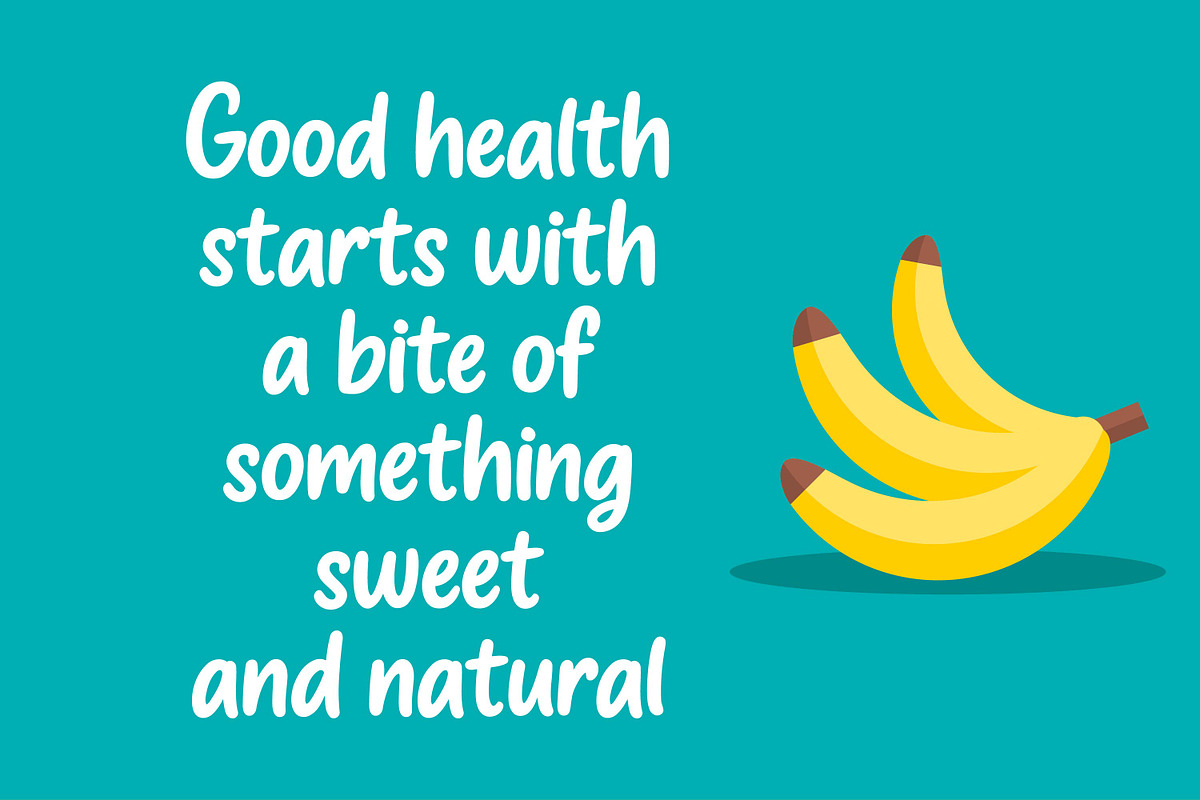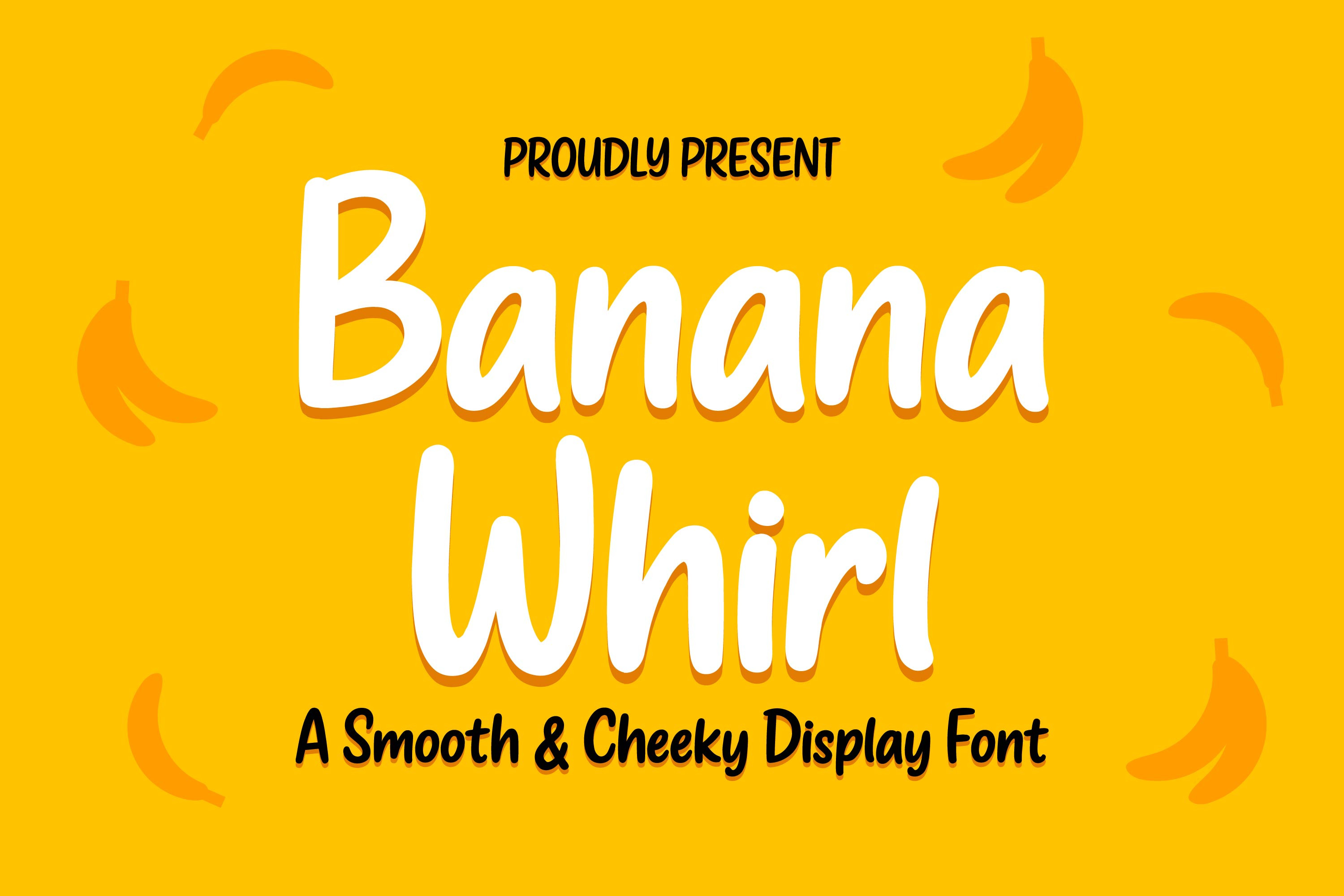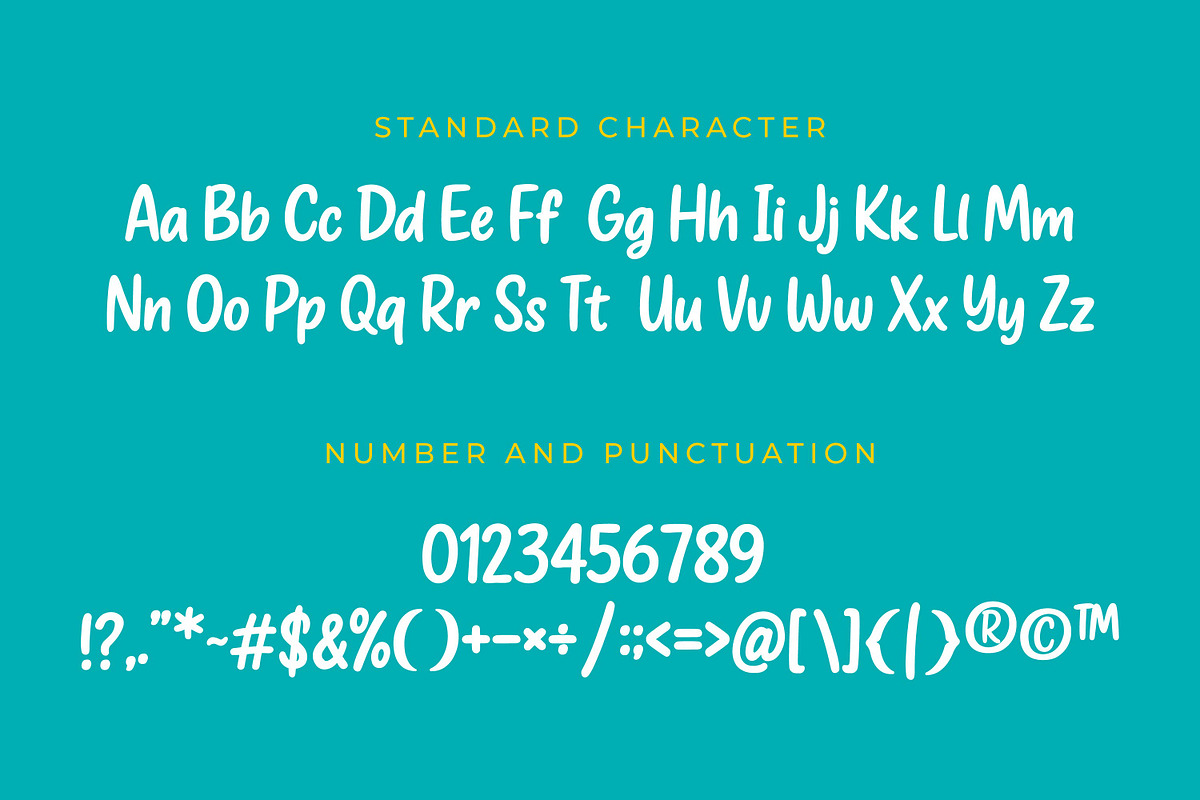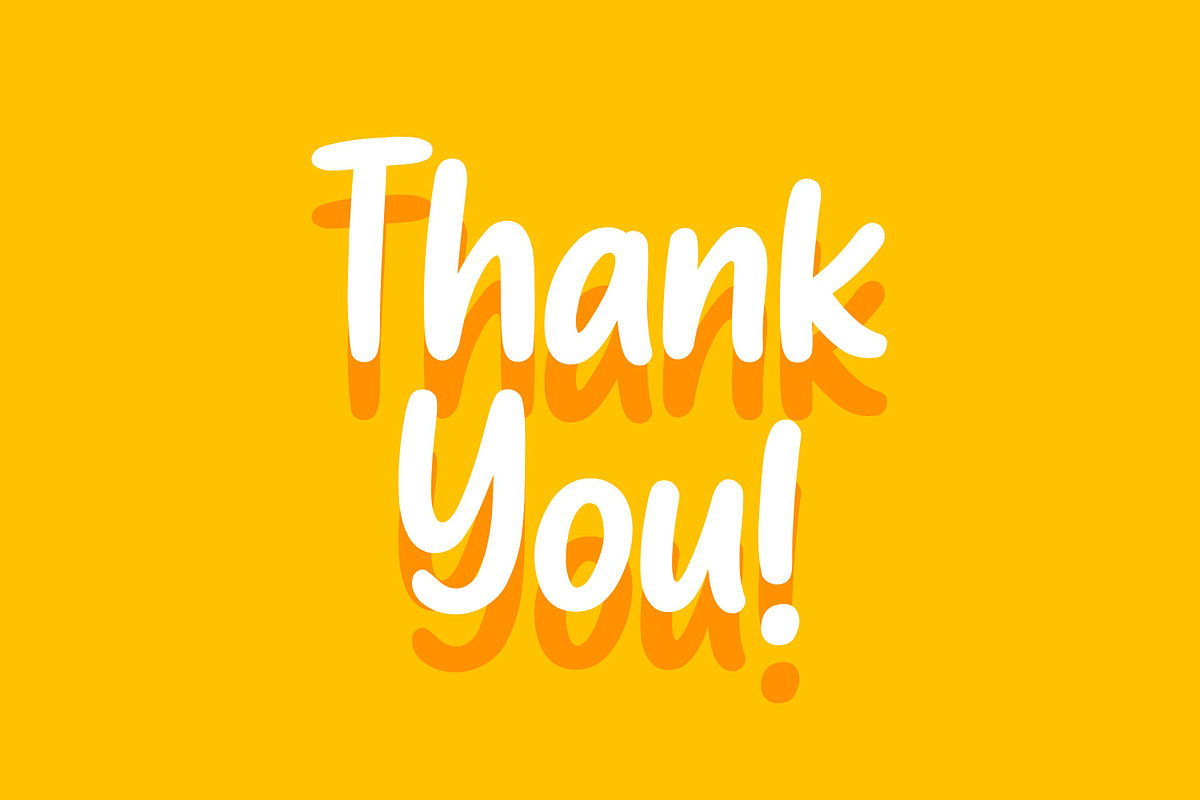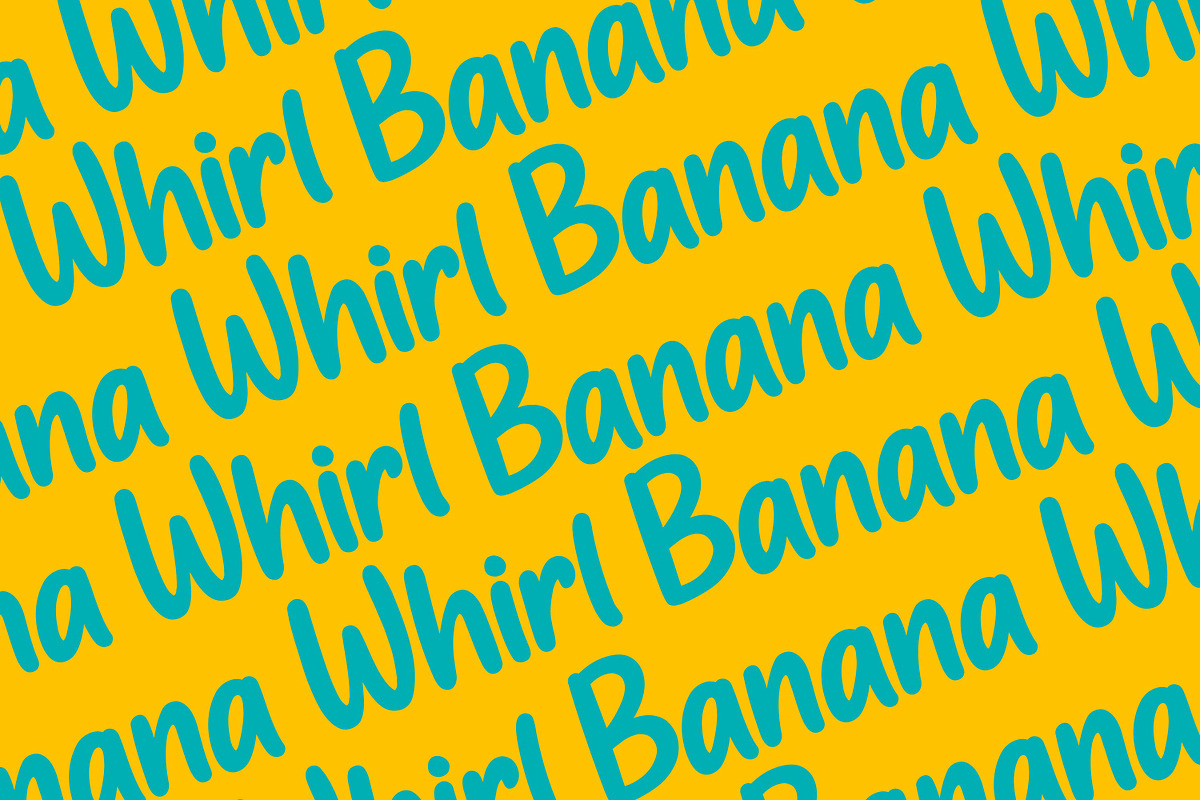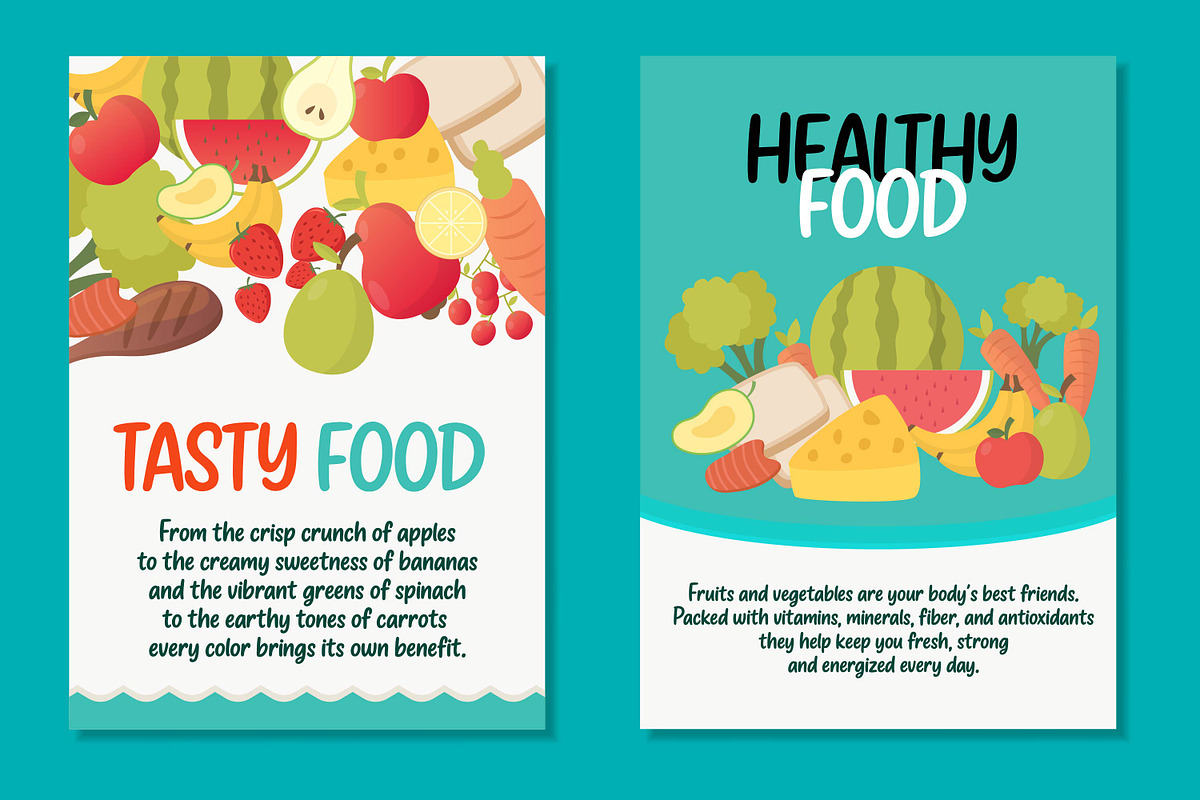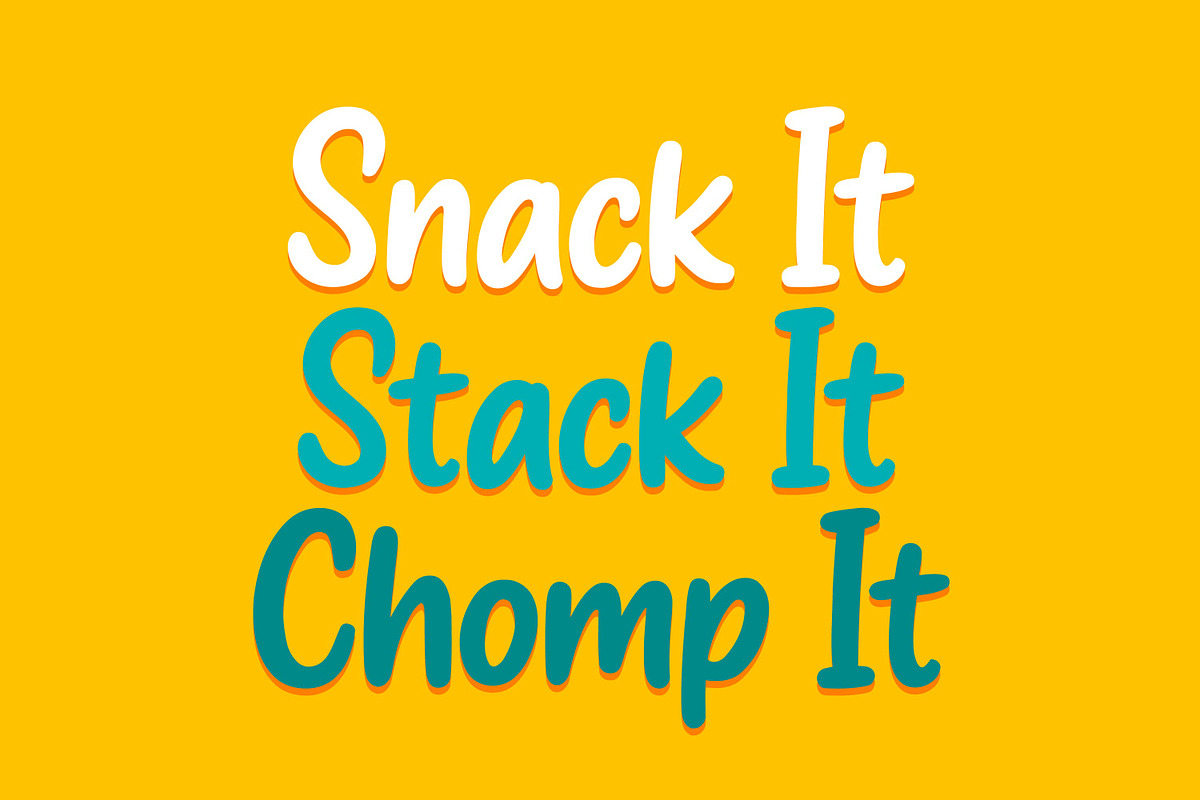
Banana Whirl Handdrawn Display Font
Banana Whirl – A Fun & Chunky Display Font
Say hello to Banana Whirl, a bold and bouncy display font that’s full of flavor! With its round curves and retro vibes, Banana Whirl brings a playful twist to any project. Inspired by the sweetness of banana snacks and the joy of childhood doodles, this font is perfect for packaging, social media posts, kids’ merchandise, cheerful branding, and anything that needs a little fun on top.
Each letter is hand-crafted to look chubby and friendly, making your words feel like a warm, happy hug. Whether you're designing a juice label, a party invite, or an Instagram quote, Banana Whirl will keep things light, bright, and irresistibly fun.